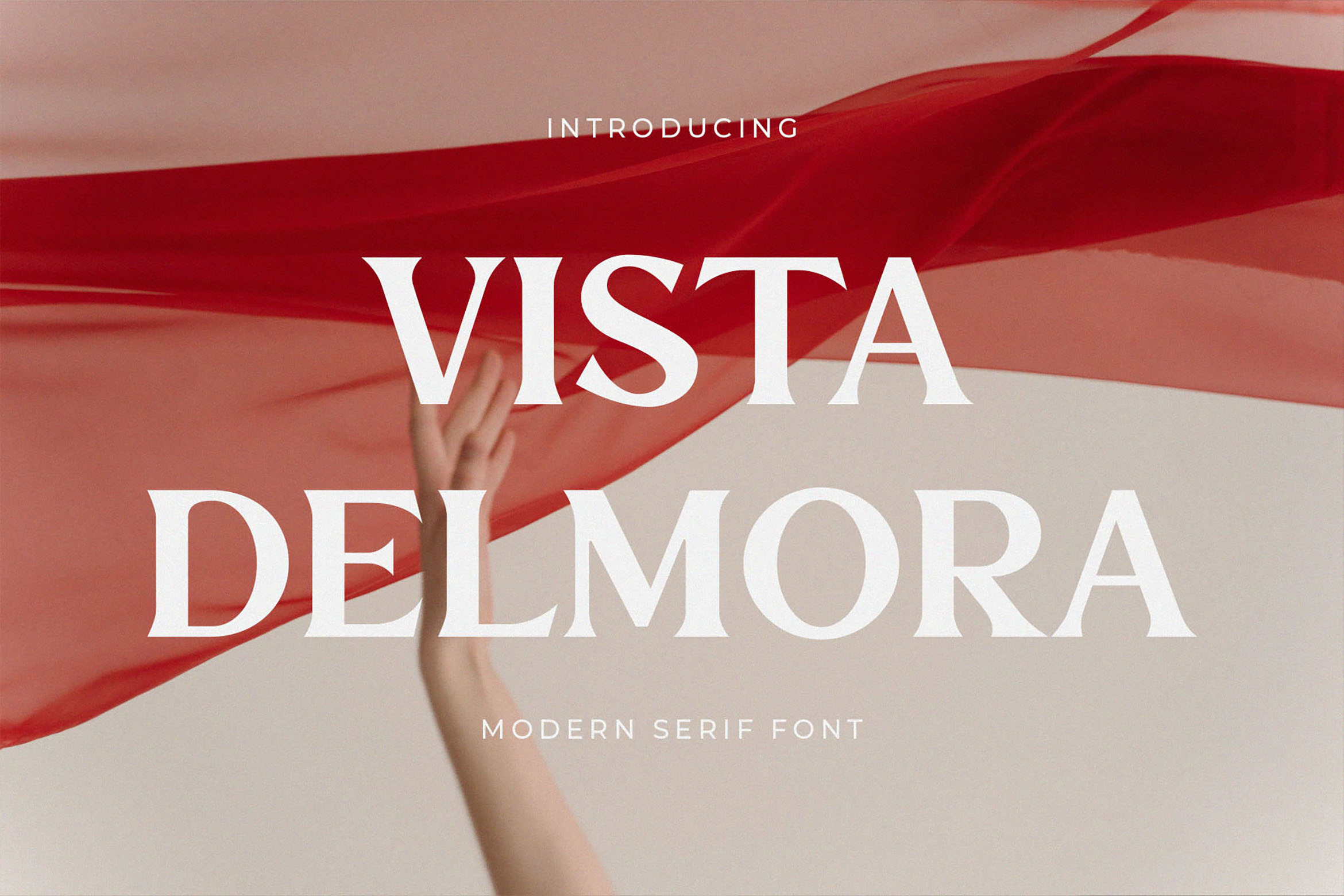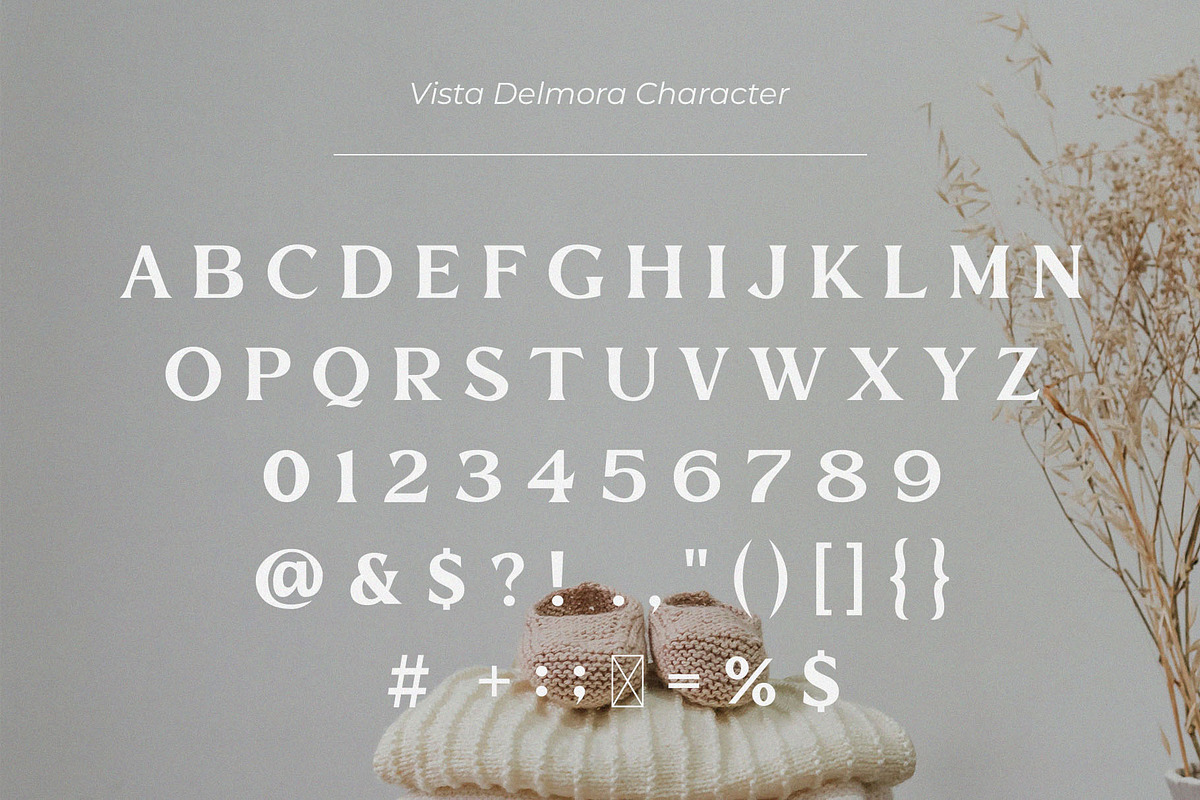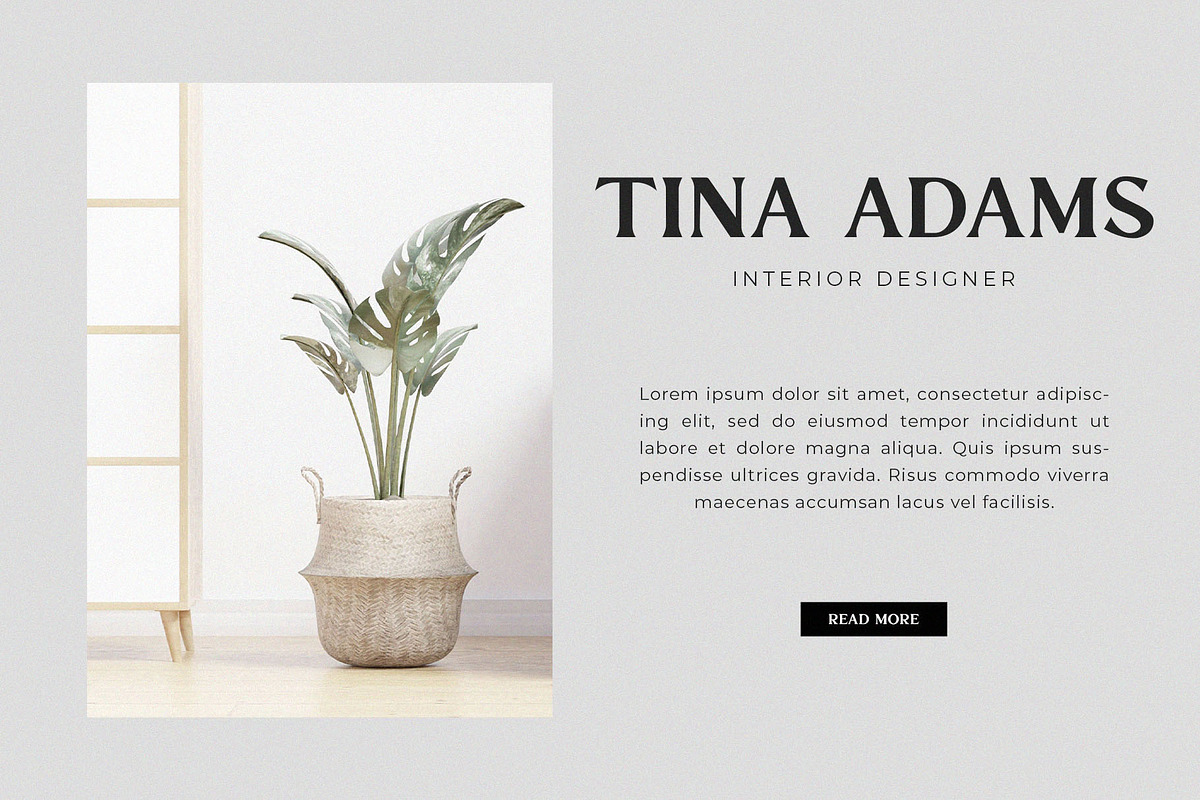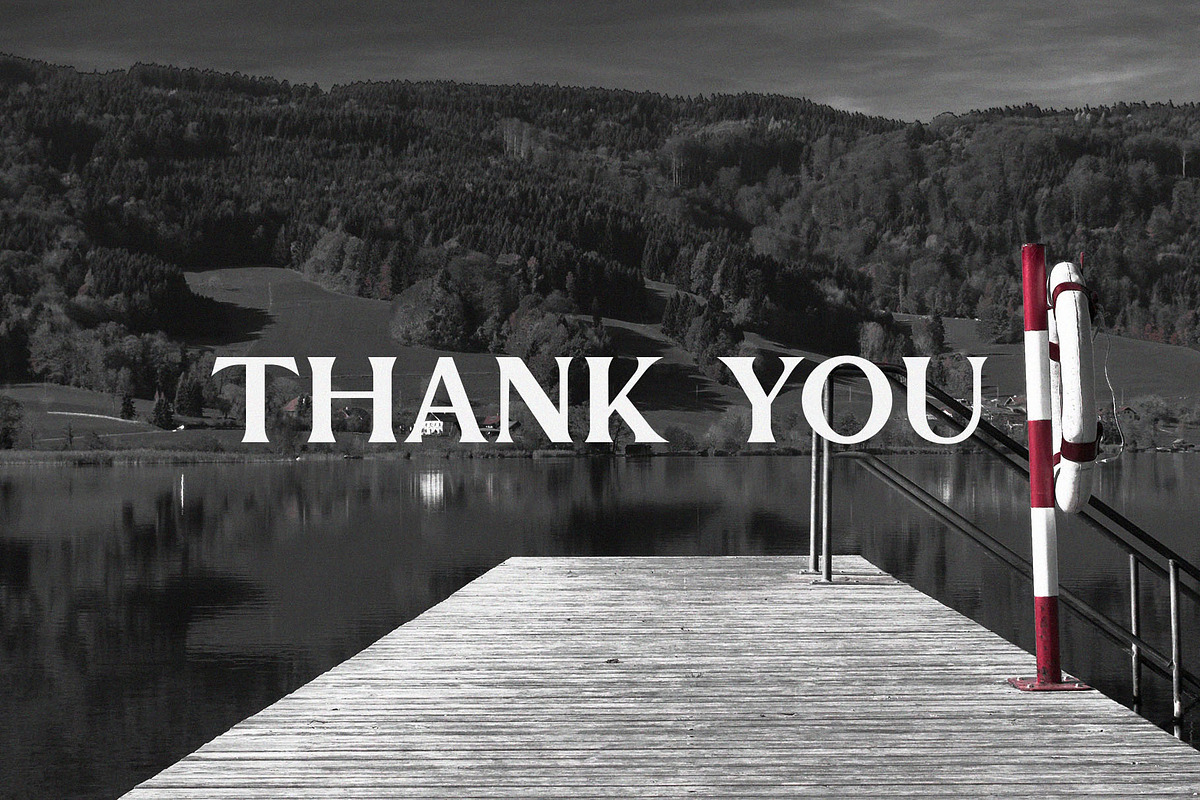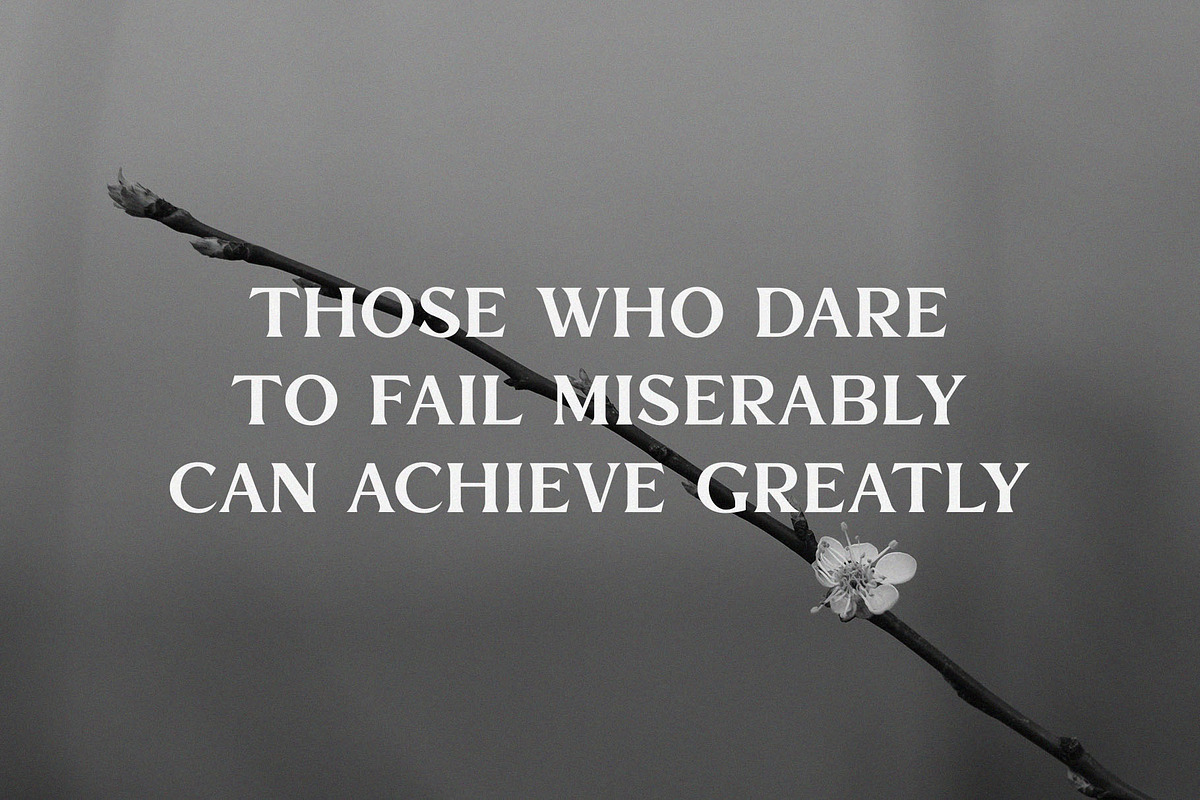
Vista Delmora - Modern Serif Font
Introducing our new Vista Delmora, modern serif font with elegant style this is perfect for branding, logos, invitation, magazines, product packaging and more.